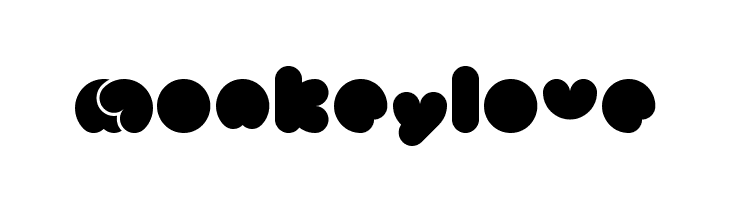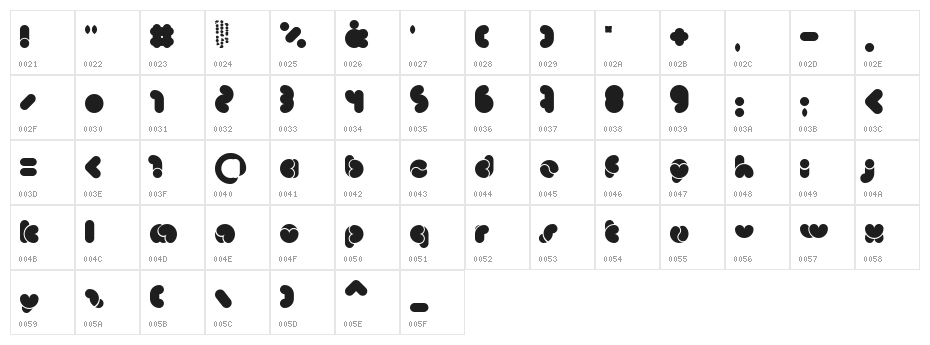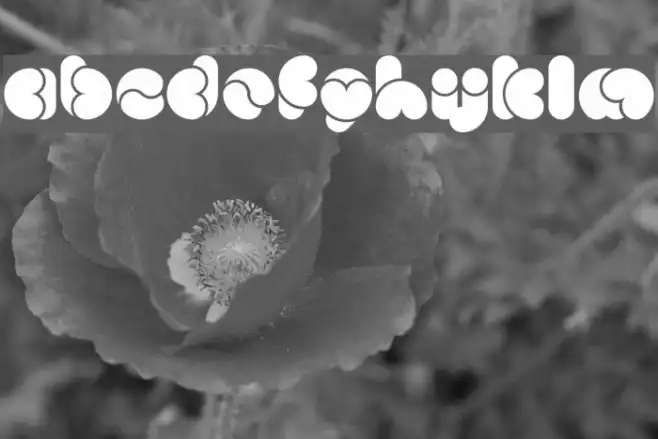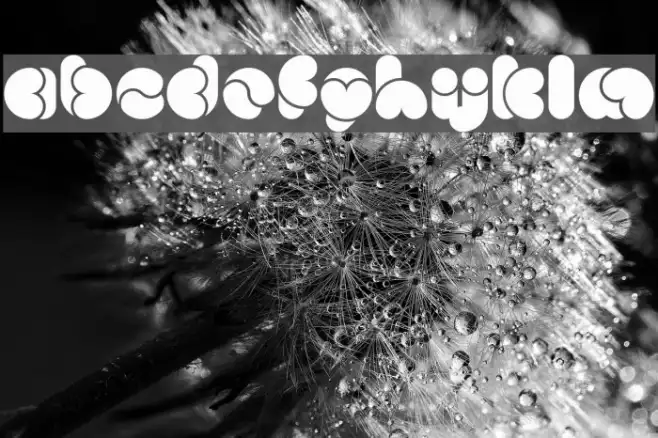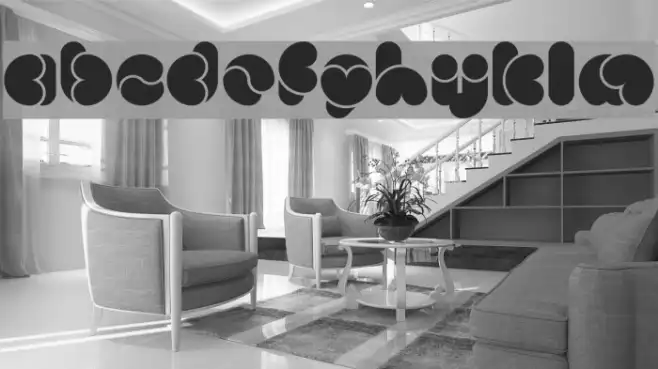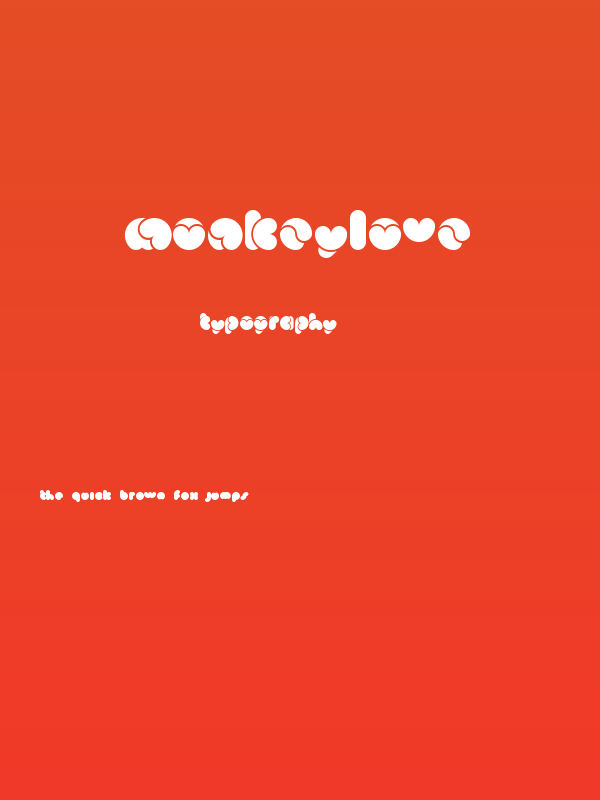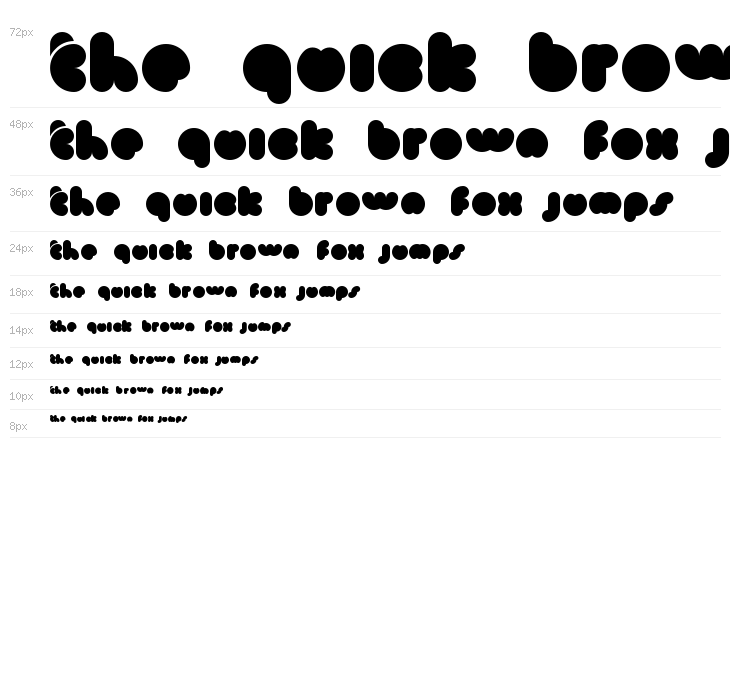
MonkeyLove Font
MonkeyLove Description
This font features a playful and bold design with a unique bubble-like appearance. Each character is composed of rounded, overlapping shapes that create a sense of fun and whimsy. The letters are highly stylized, with a consistent thickness throughout, giving them a uniform and cohesive look. The numbers and special characters follow the same design principles, maintaining the playful and bold aesthetic. This font is perfect for projects that require a touch of creativity and a lighthearted feel.